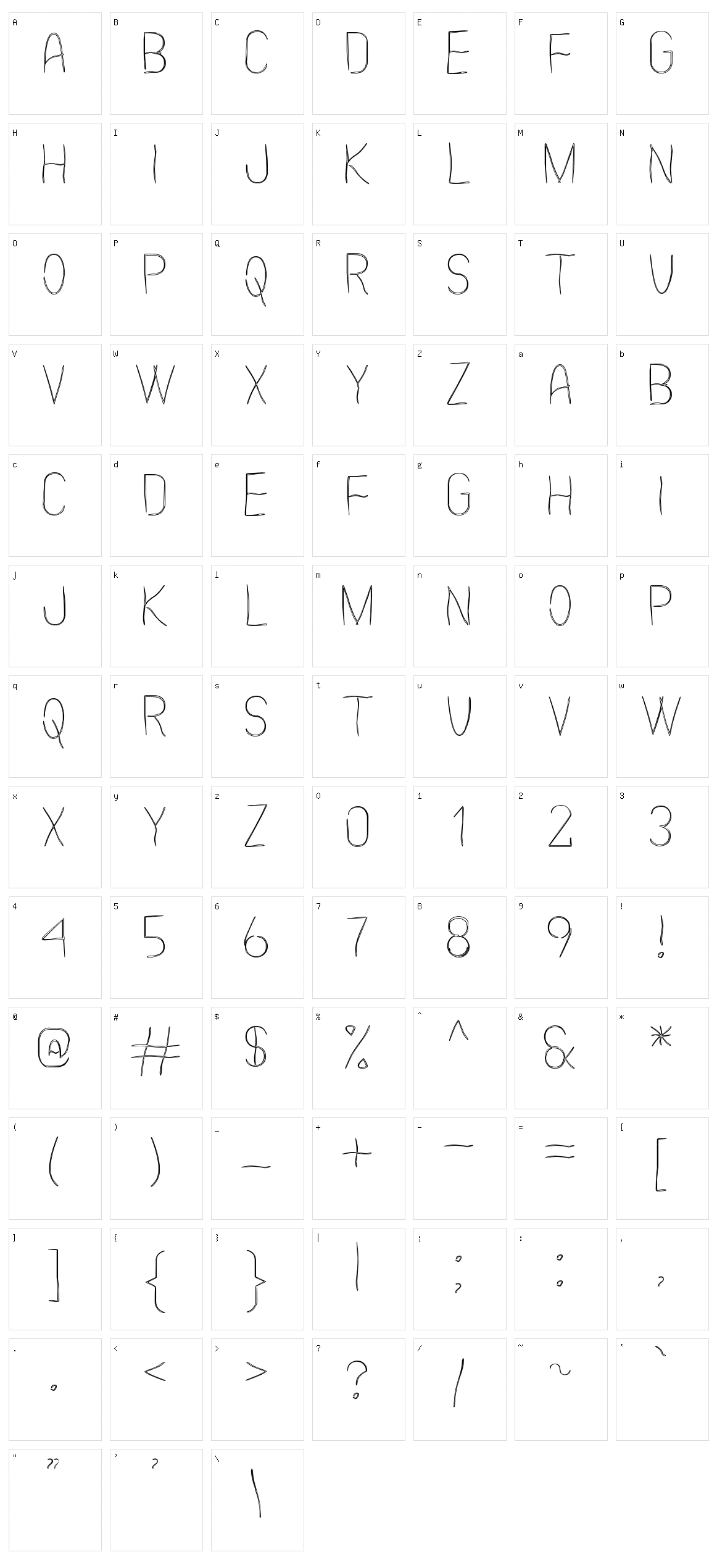
The free font Scarythin St is carefully designed by Southype, showcasing a thoughtful balance of creativity and usability and falls under the Horror font style. When you download the ZIP file, it contains only 25.61 KB of font files, making it lightweight and quick to download. Please review the license details below to understand permitted usage and distribution rights. If license information is not available, we recommend using this font for personal projects only or contacting the author directly for commercial usage permissions.